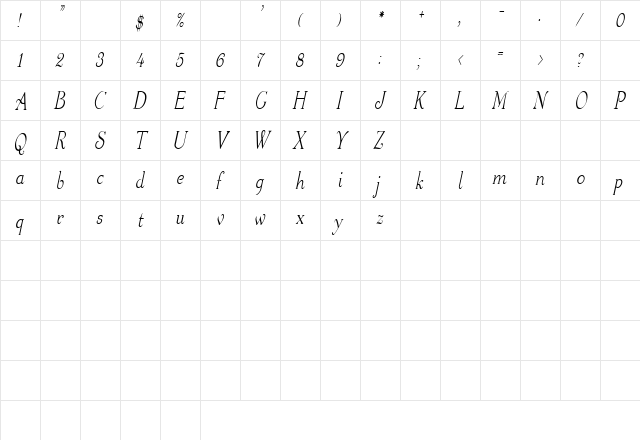
WaltersCondensed Italic Font Preview
Design Context for WaltersCondensed Typeface
WaltersCondensed offers clean, dependable letterforms without strong stylistic allegiance, making it a practical choice for designers who need flexibility. Its italic angle brings a sense of urgency and motion to the letterforms. The condensed width makes it efficient for tight spaces without sacrificing legibility.
Pro Tip: Try WaltersCondensed for annotation and caption copy alongside an upright companion — the contrast in angle creates a dynamic but ordered typographic system.